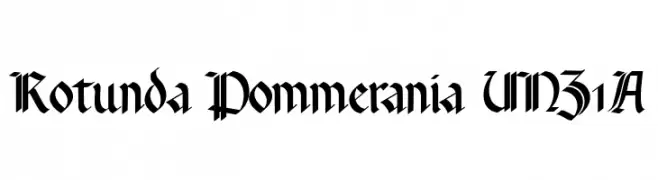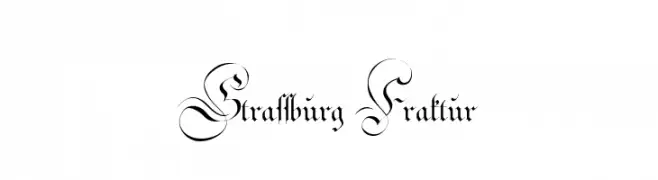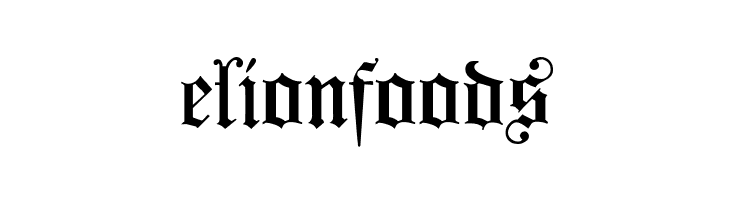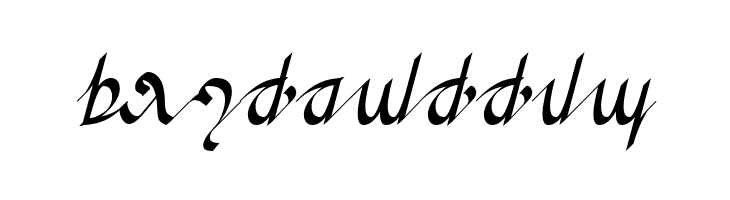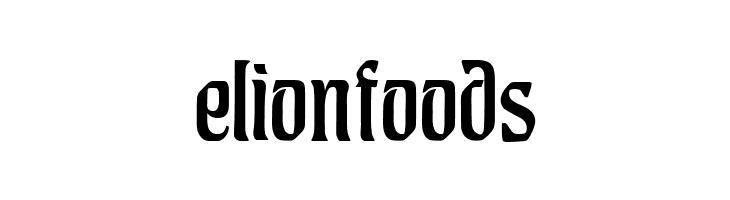
A spooky, dripping font perfect for horror themes.
A distressed, vintage-style font with bold, textured uppercase letters.
A bold, ornate Blackletter font with a medieval aesthetic.
A dot matrix style font inspired by early telegraph systems, offering a retro digital look.
An ornate and decorative blackletter font with elaborate flourishes.
A bold, ornate Blackletter font with intricate, gothic styling.
A decorative script with flowing, intricate lines inspired by Tengwar.
A classic blackletter font with ornate, medieval-style letterforms.
A bold blackletter font with sharp, angular lines and high contrast strokes.
A bold, ornate blackletter font with a medieval aesthetic.